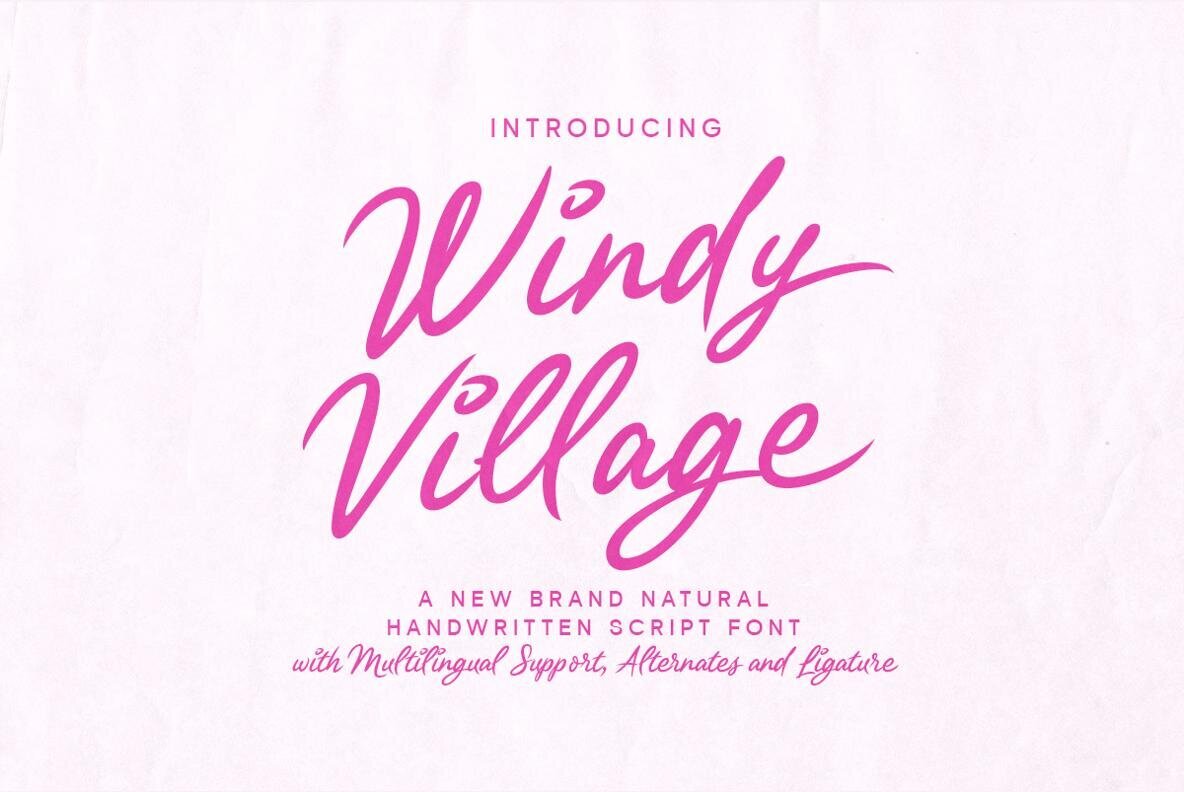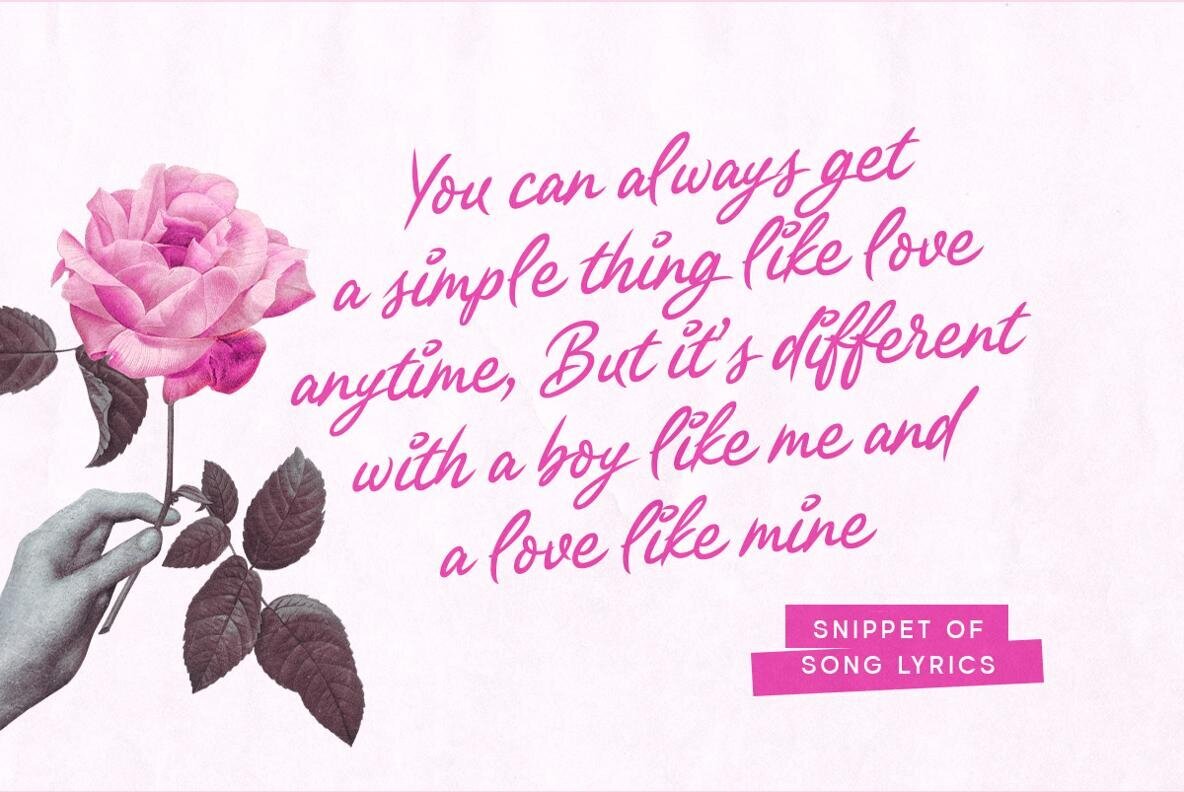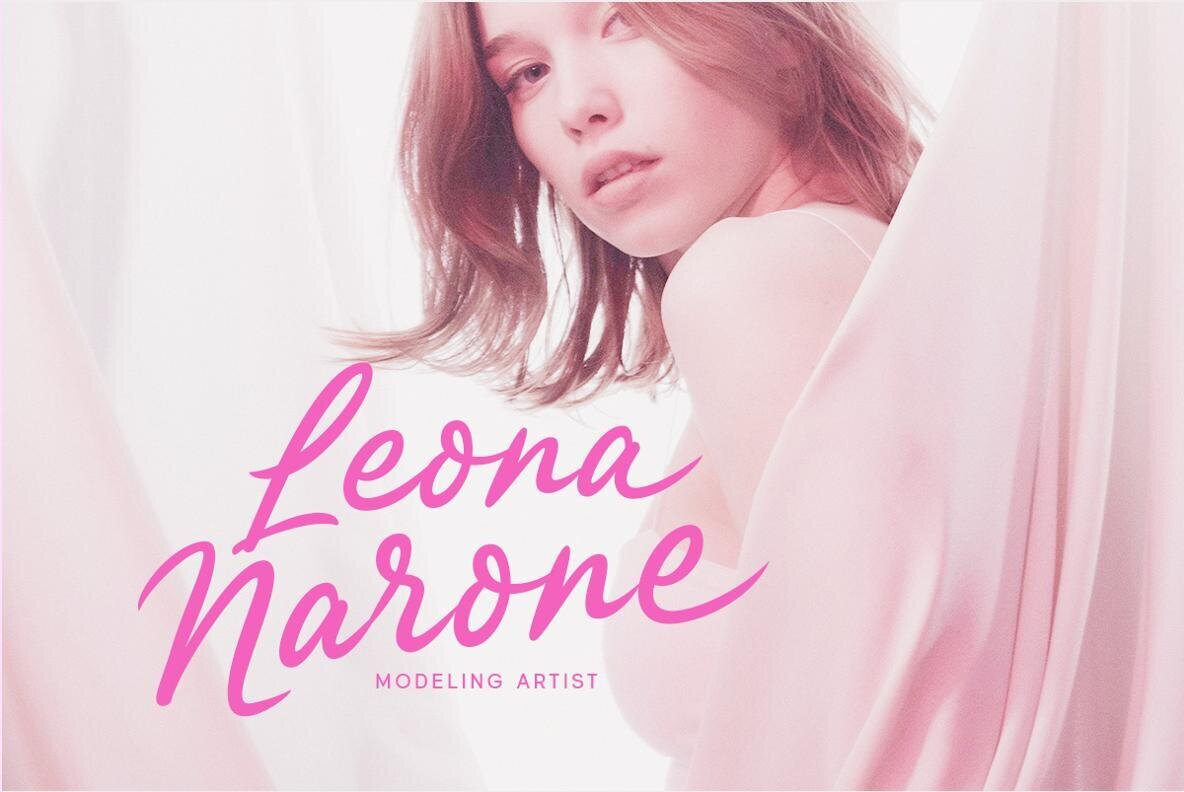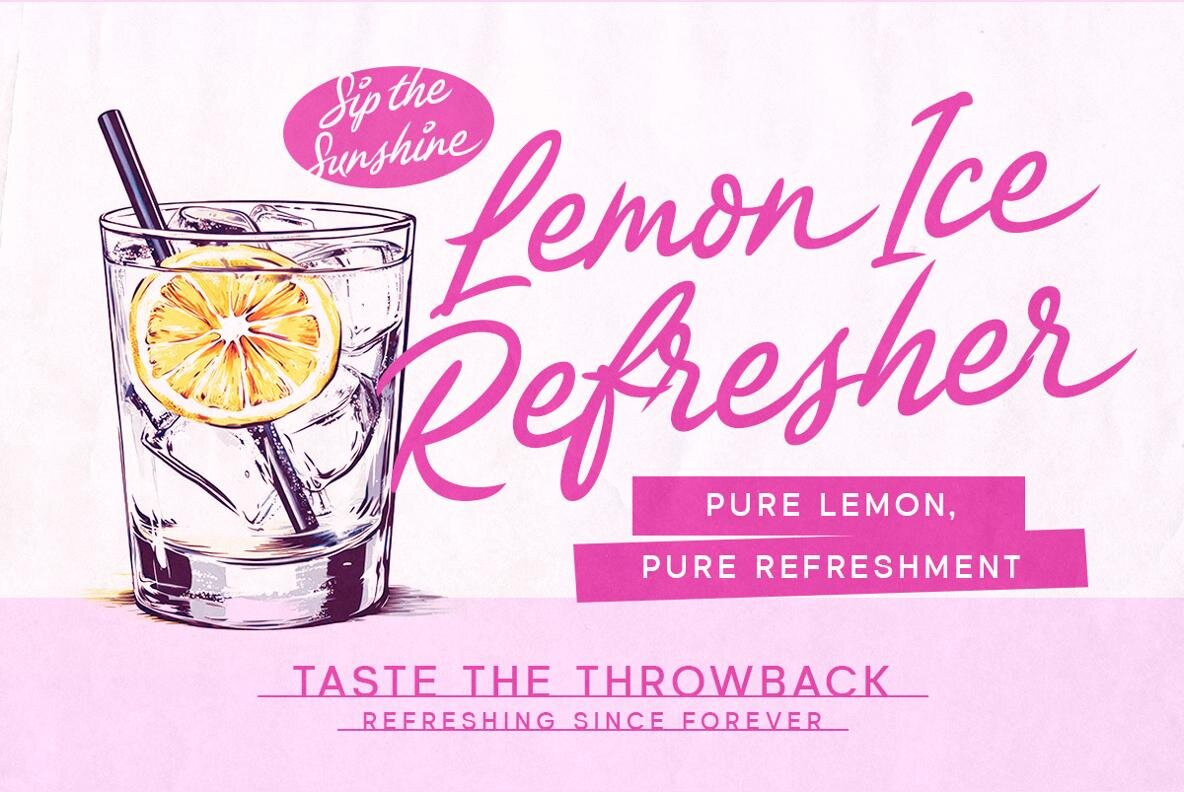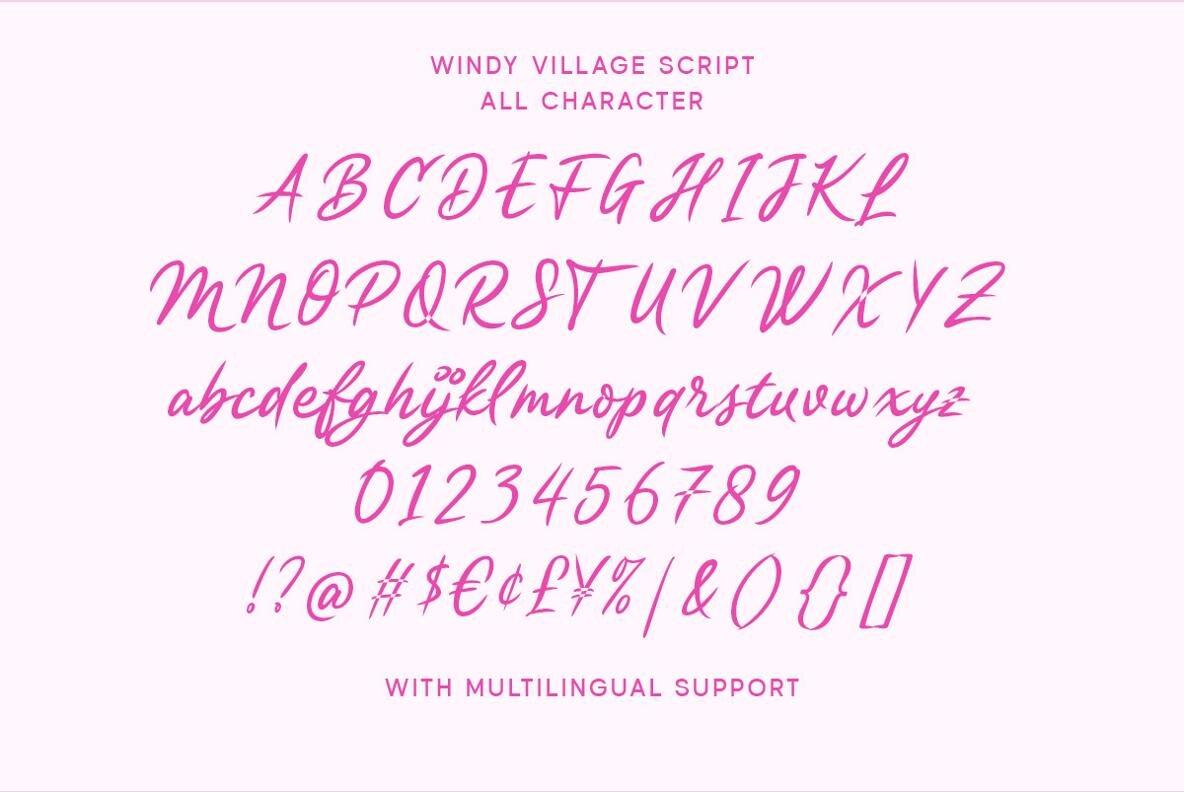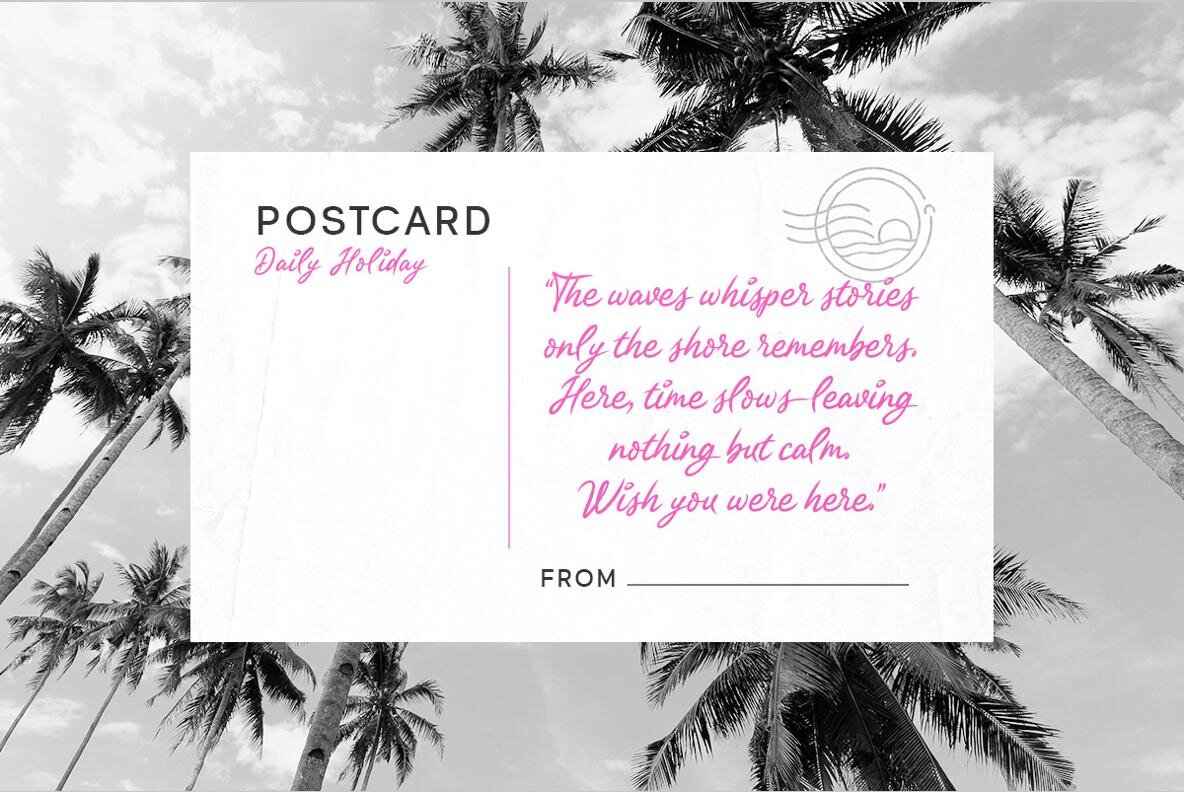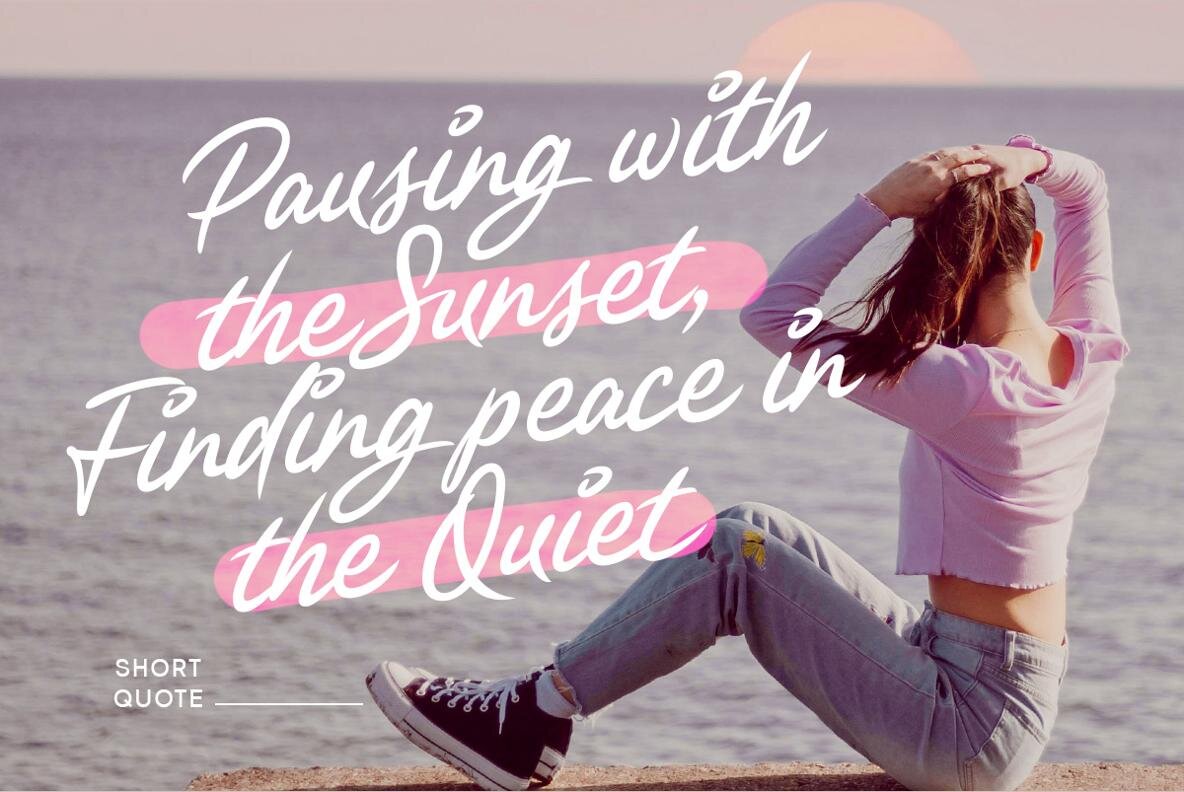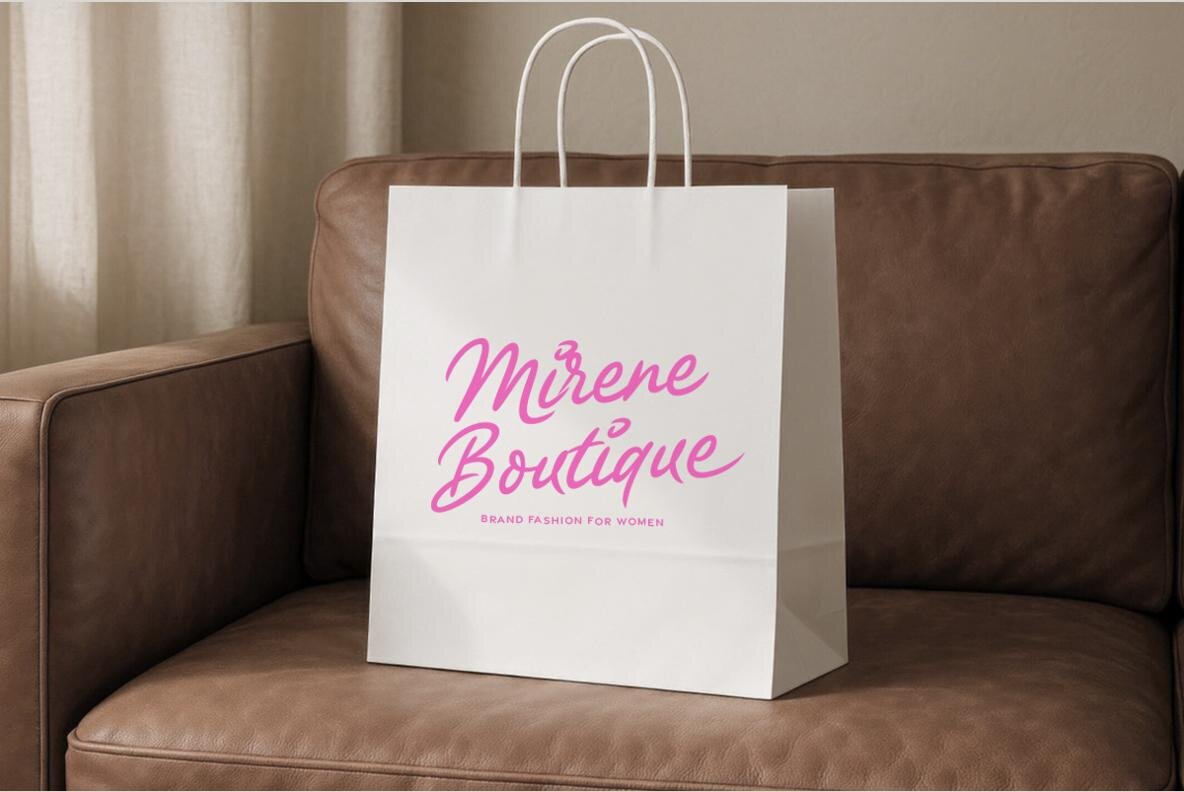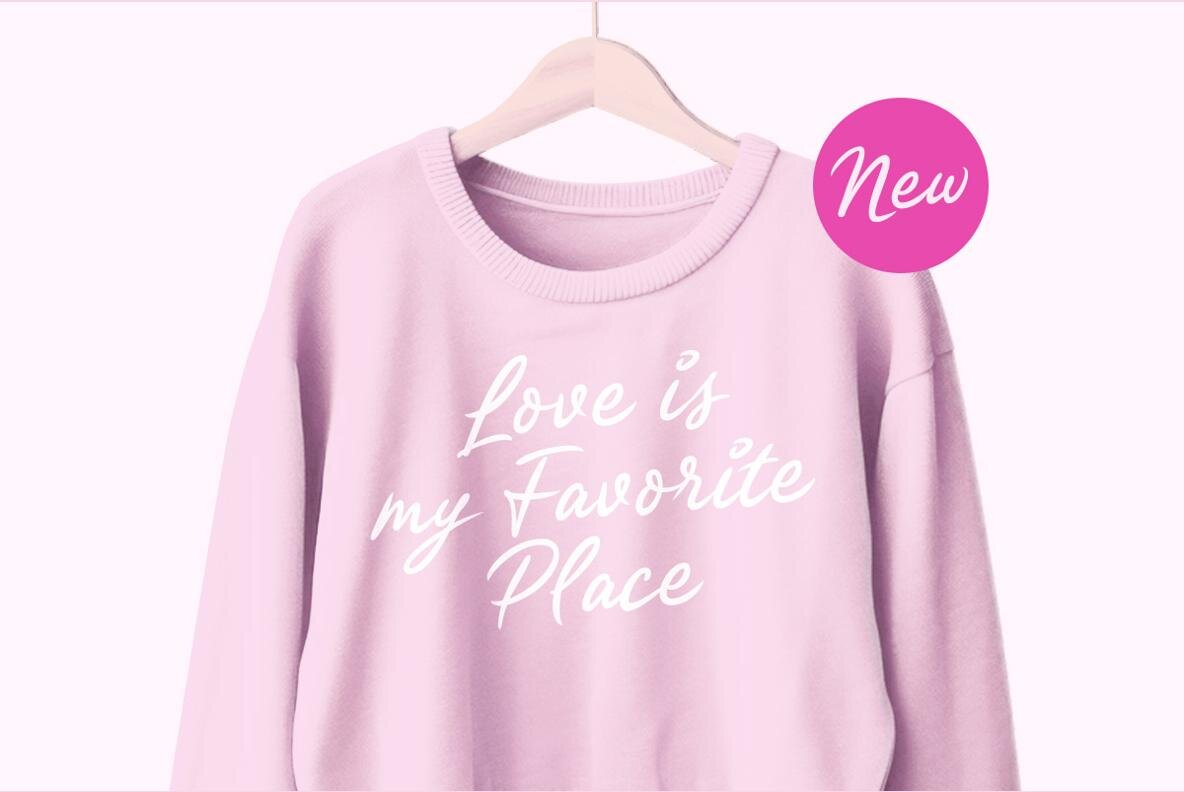
Windy Village Font
Windy Village Regular
Windy Village offers a handwritten script font distinguished by smooth movement and confident, rounded strokes. The design brings a natural energy to any project, striking a balance between approachable warmth and a clean, modern sensibility. This font lends a personal feel ideal for branding, packaging, event invitations, and social media visuals where a sense of joy and authenticity is desired. The fluid letterforms support creative expression, making Windy Village well-suited to a variety of applications that seek to communicate a friendly, fresh tone. Its distinctive style complements both digital and print projects seeking a unique yet legible aesthetic. Features:Windy Village: Expressive Handwritten Script With Organic Charm